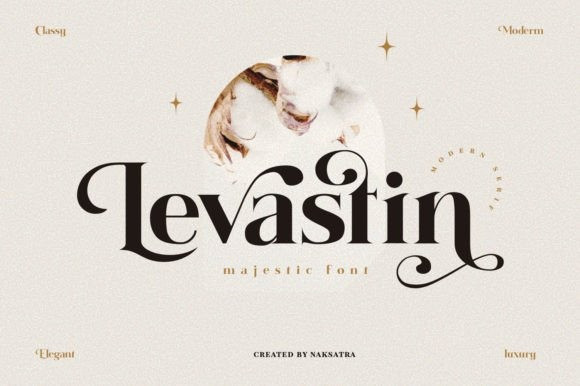
Levastin Font
Levastin Font is beauty Modern or Vintage style. This font is support multilingual going to access OpenType features alternate letters and ligatures, select the letters that you like and Levastin will create your design look good.